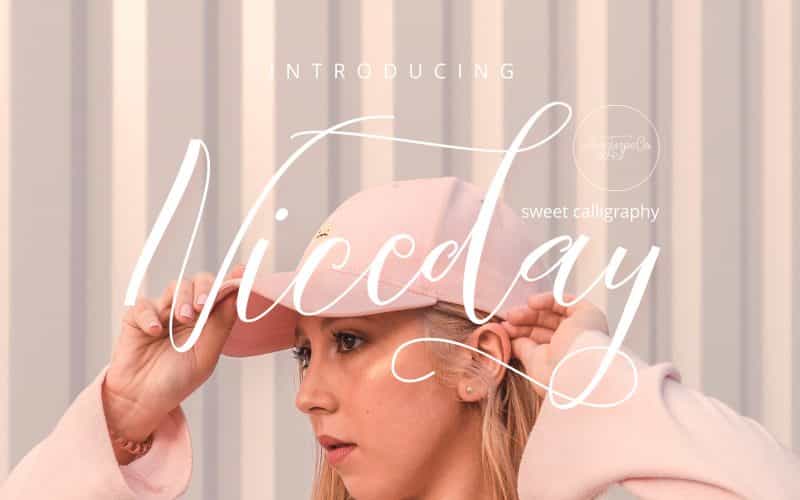
Niceday is a modern feminine script that is easy to experience. Use Niceday to help you create stunning hand-lettering quickly. These fonts include alternate glyph and ligature. You can access alternate glyphs via the font book, Mac users or windows character map, Windows users. We introduce the beautiful hand drawn brush script with swashes, Girly Things Script font.